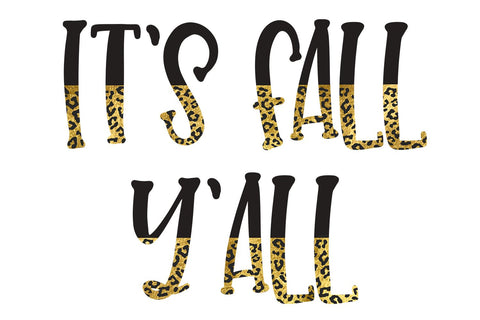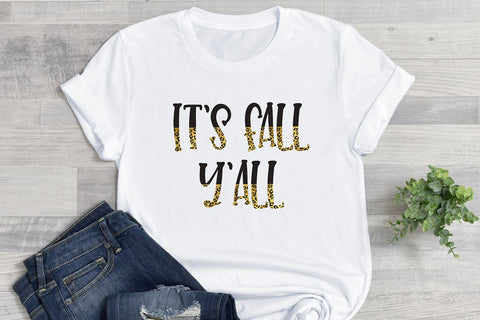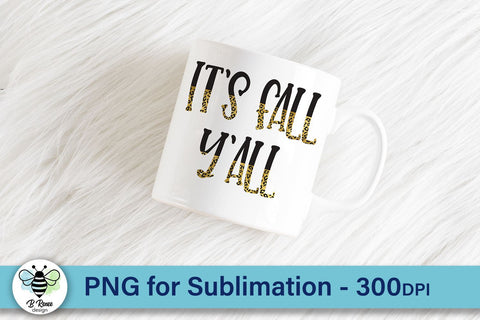
It's Fall Y'all Gold Half Leopard PNG | Fall Sublimation
Make cute fall items with this It's Fall Y'all PNG.  It features cute gold leopard print accents on the letters, and is all ready for your sublimation projects.  Make t-shirts, mugs, signs, cards, tote bags, stickers, and more!  The image is not mirrored, but can be mirrored in your design software.